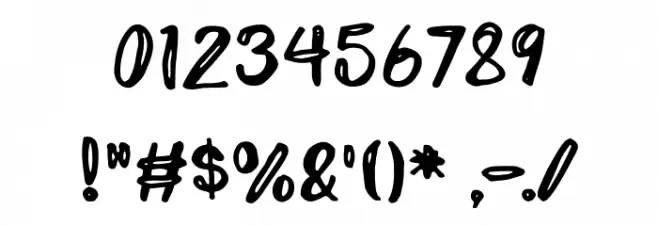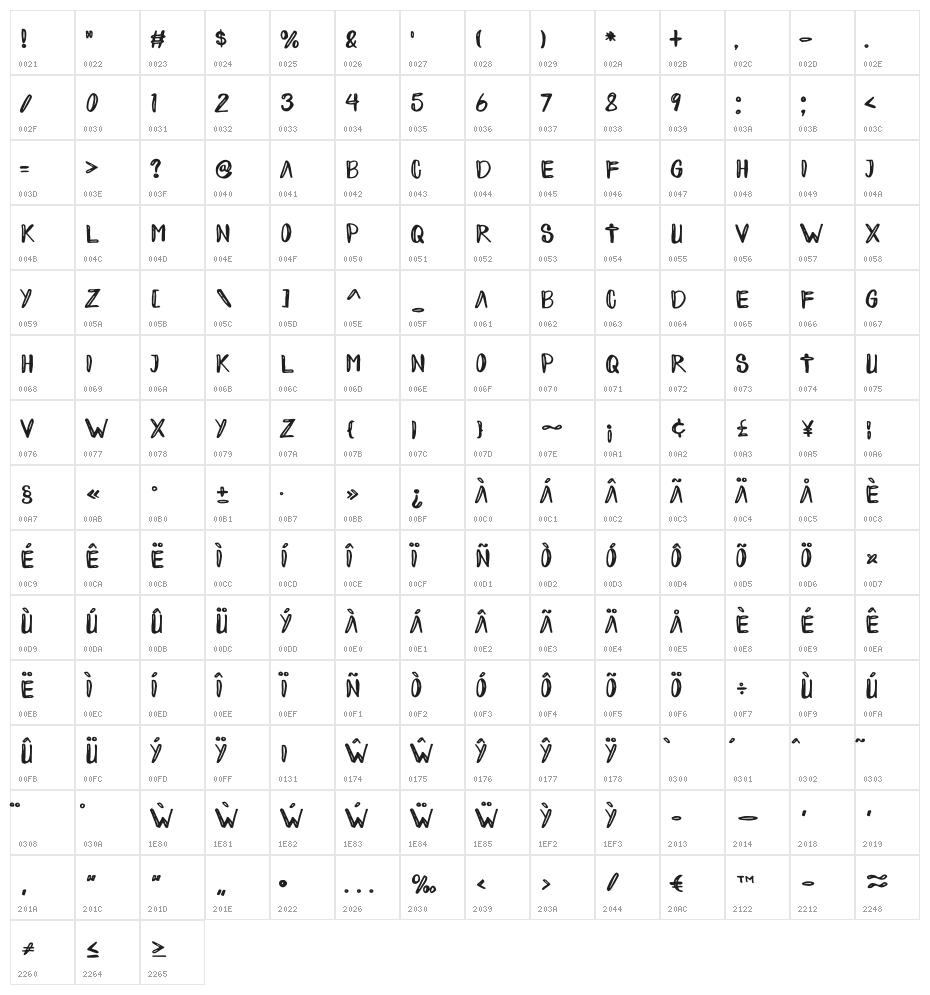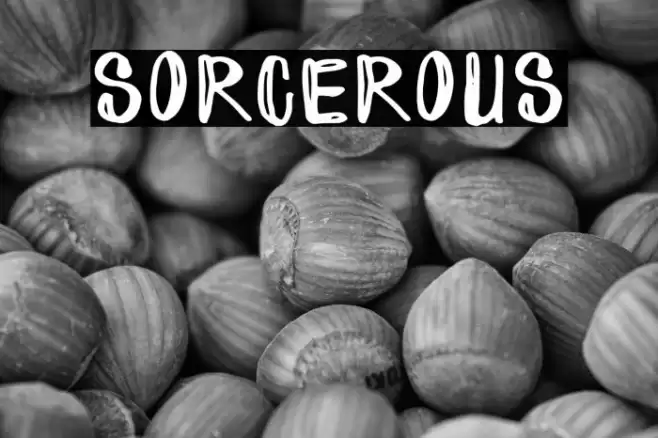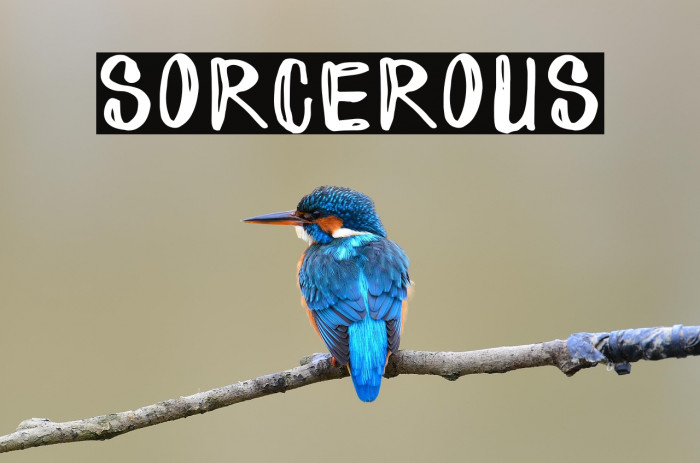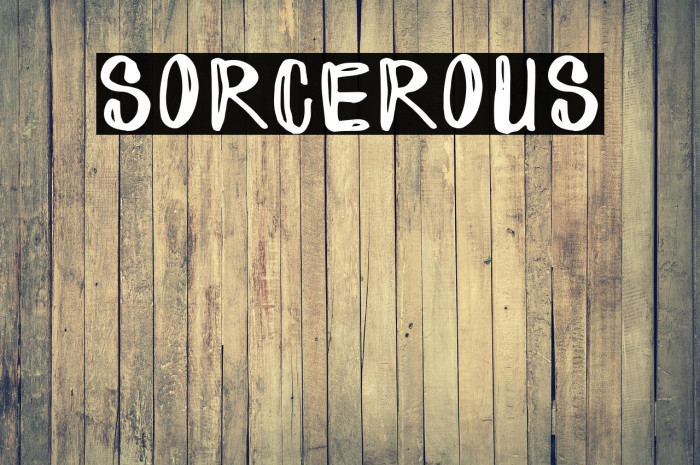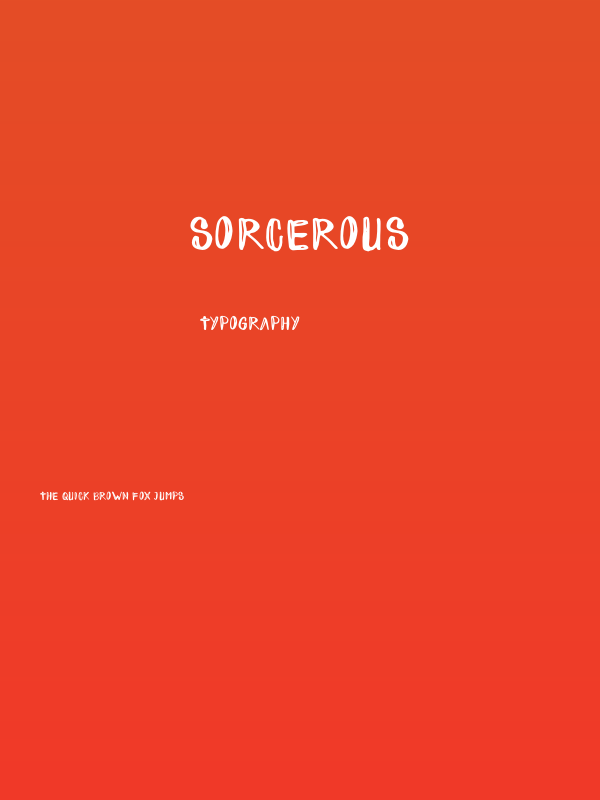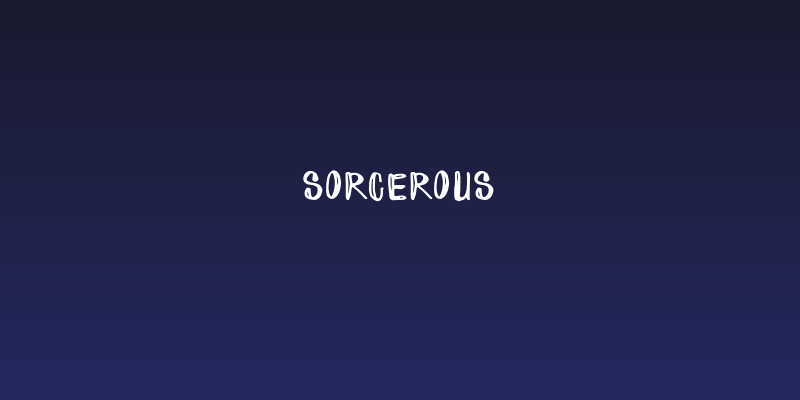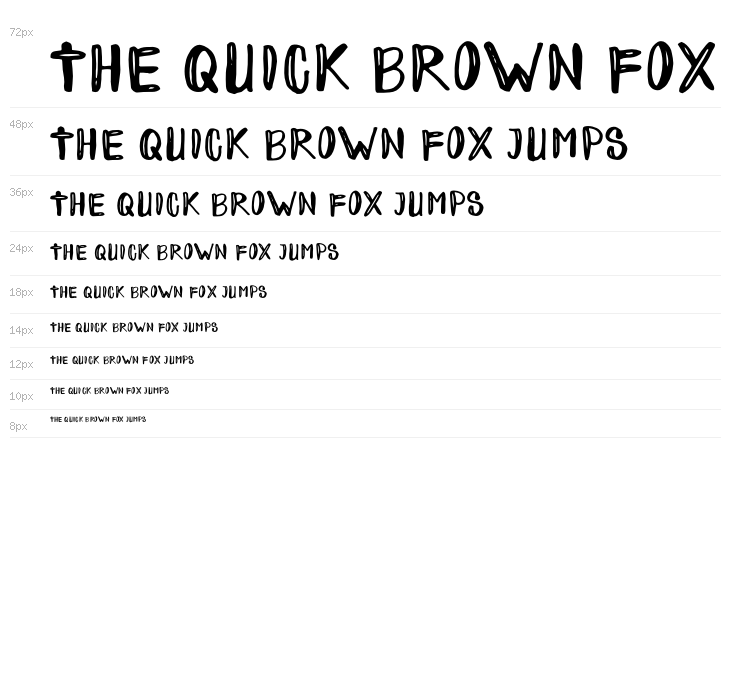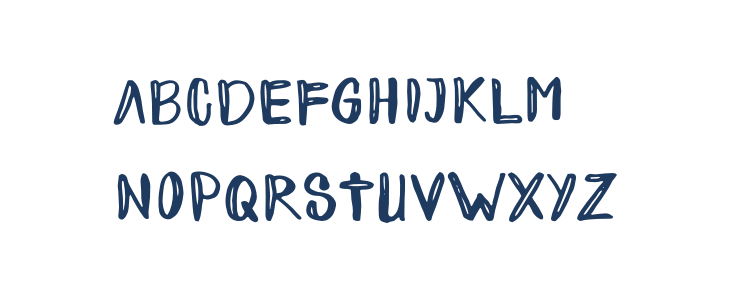
Sorcerous Font
Sorcerous Description
This font features a playful and whimsical style, characterized by its bold, hand-drawn appearance. Each letter has a unique, slightly irregular shape, giving it a lively and dynamic feel. The strokes are thick and consistent, with a medium contrast that adds to its boldness without compromising readability. The overall design is reminiscent of casual handwriting, making it suitable for projects that require a personal touch. The characters are well-spaced, ensuring clarity and legibility even at smaller sizes. This font is ideal for creative projects, adding a touch of fun and personality to any design.
| Proposed Projects | Ideal for children's books, greeting cards, playful branding, and creative posters. |